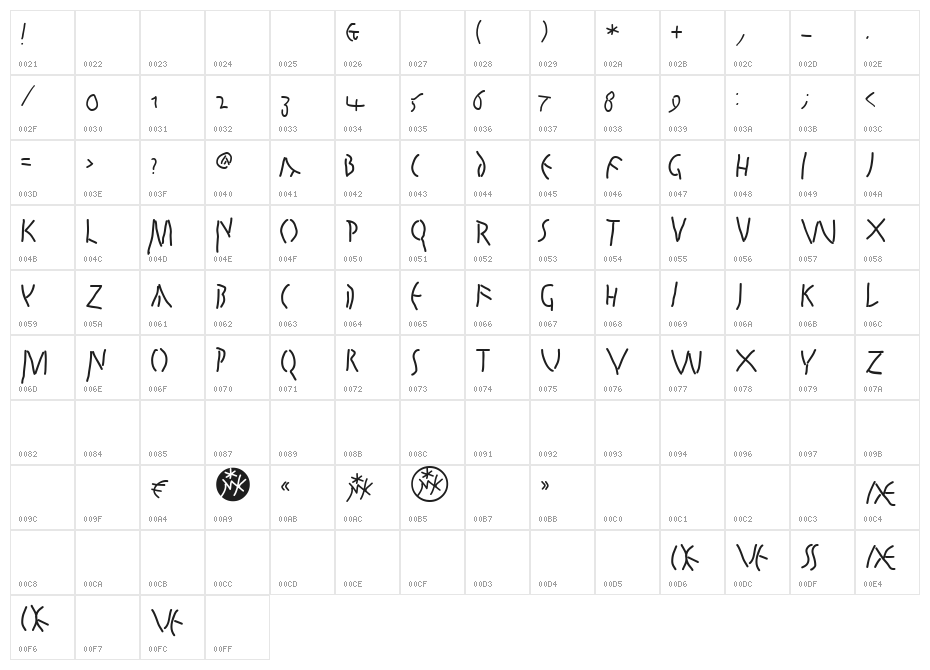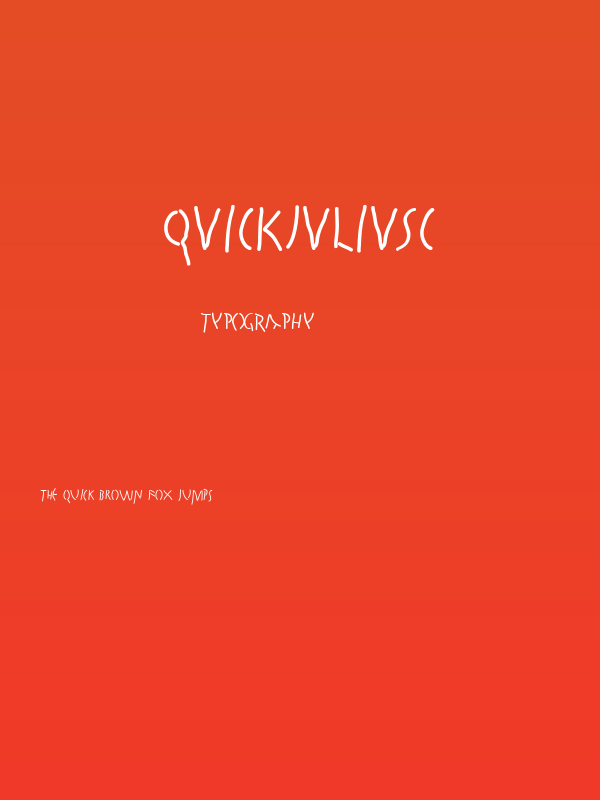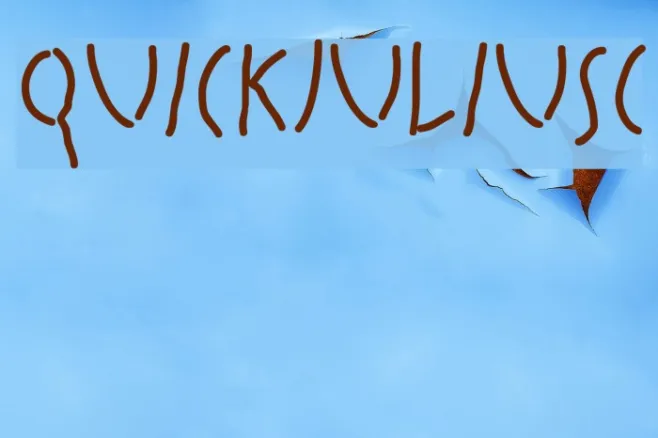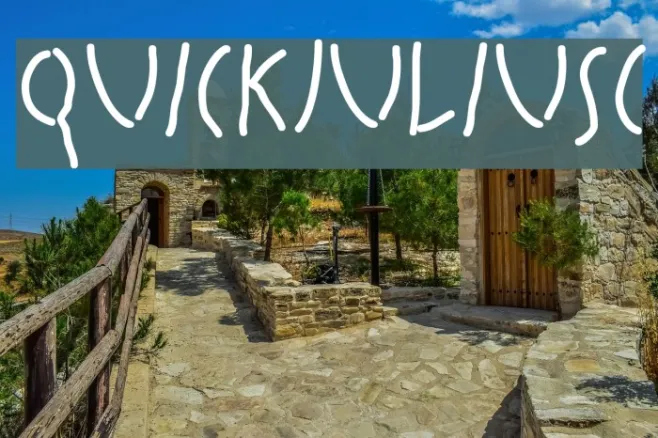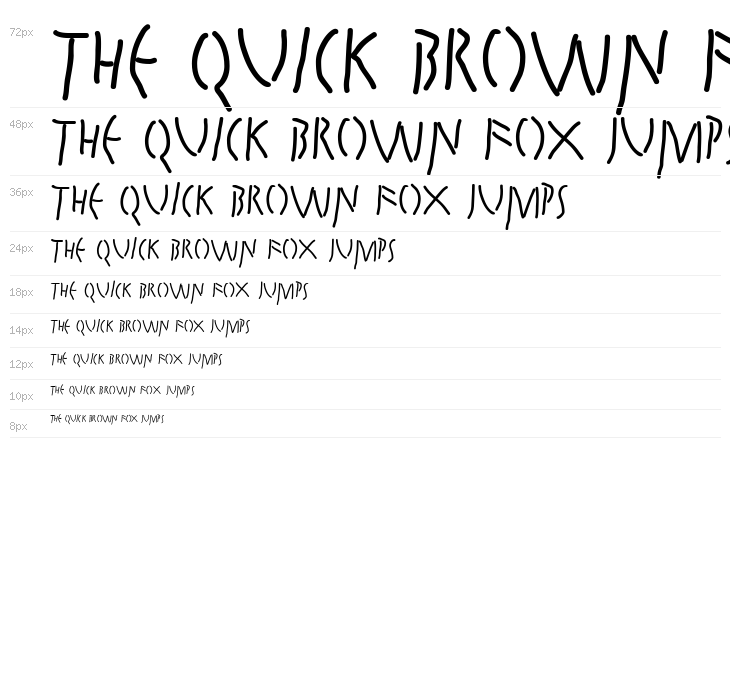
QuickJuliusC Font
QuickJuliusC Description
This font features a unique, hand-drawn style with an artistic flair. The characters are elongated and slightly irregular, giving them a whimsical and playful appearance. The uppercase letters have a distinct, almost tribal look, with strokes that vary in thickness, adding to the font's dynamic character. The lowercase letters maintain the same artistic style, ensuring consistency throughout the typeface. Numbers and special characters are crafted with the same attention to detail, making them blend seamlessly with the alphabet. This font is ideal for projects that require a creative and informal touch, such as children's books, artistic posters, or branding for creative industries.